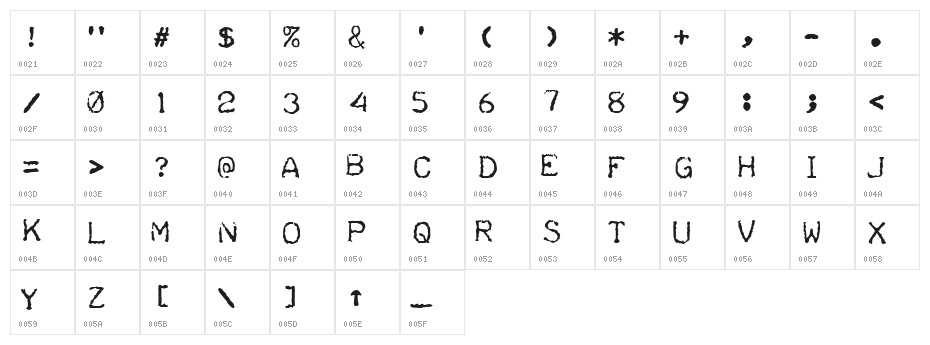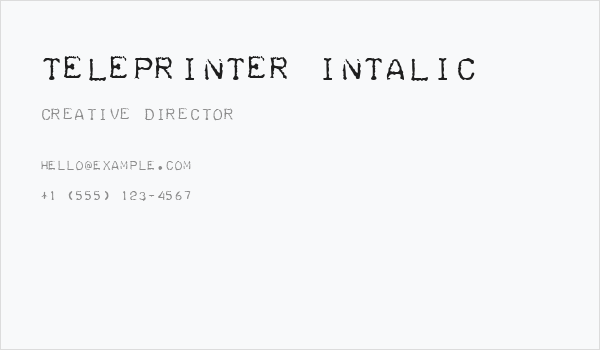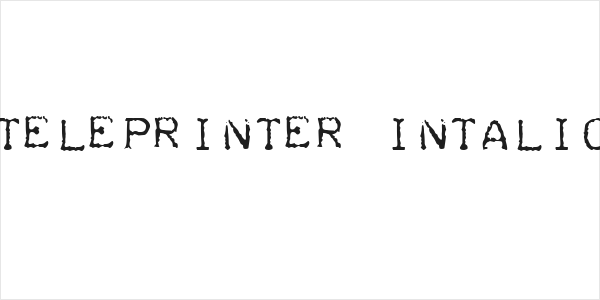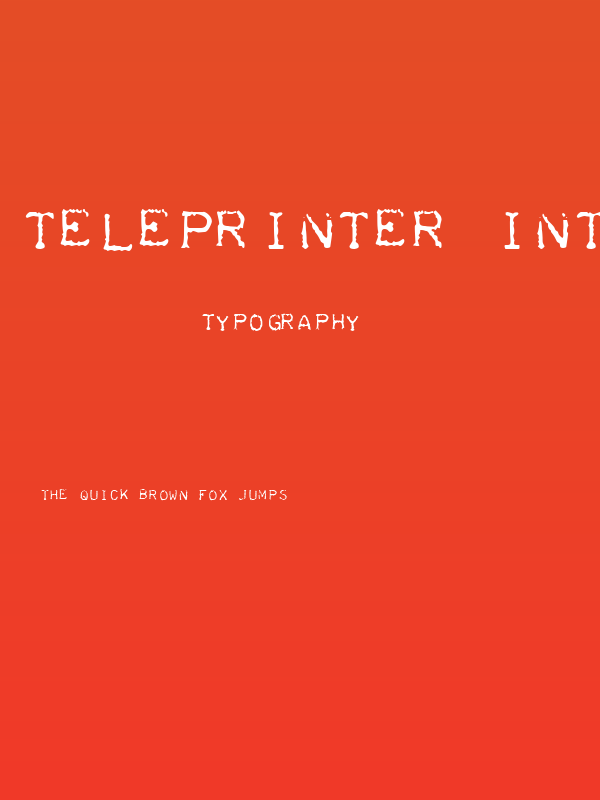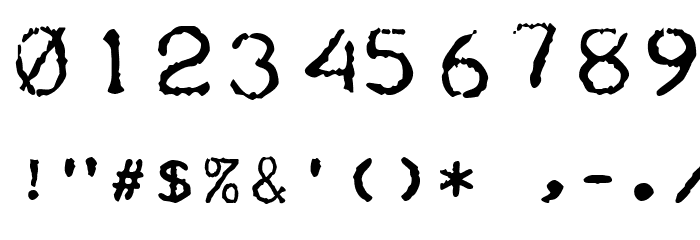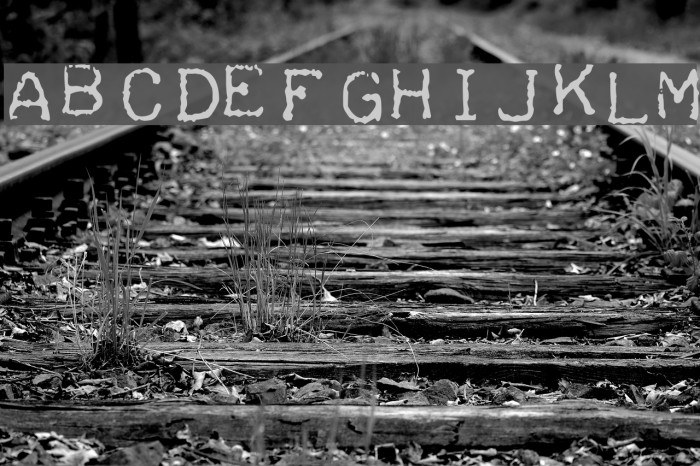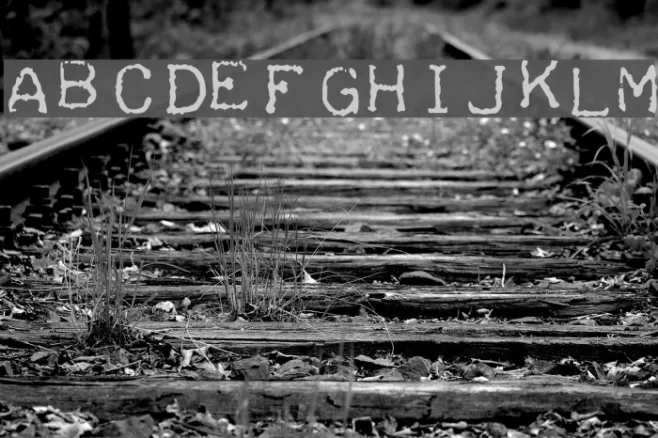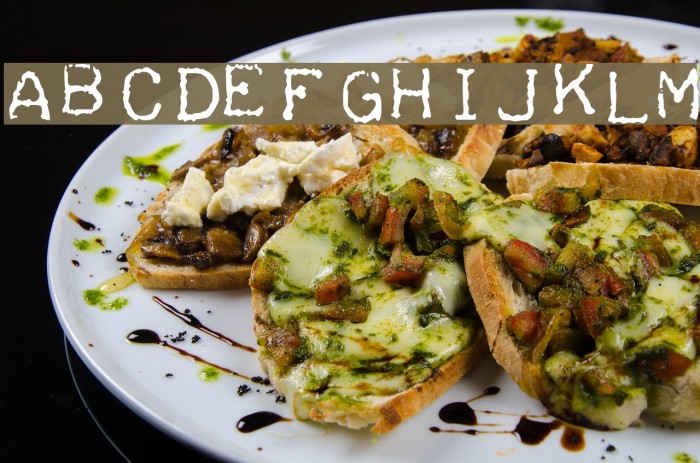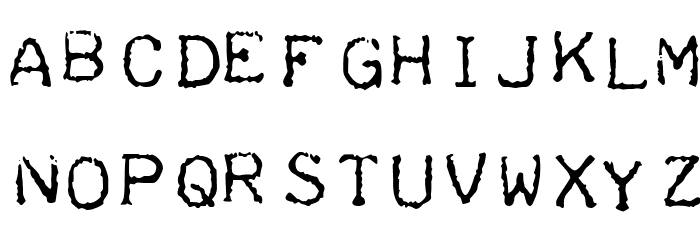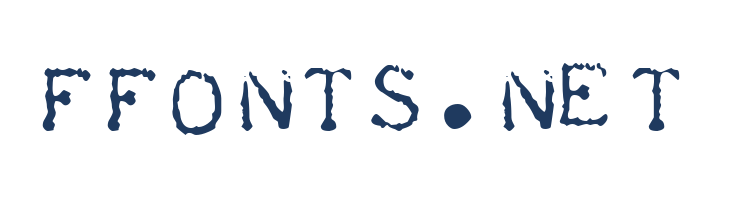
Teleprinter Intalic Font
Teleprinter Intalic Description
This font features a distinctive, textured appearance reminiscent of old typewriter or teleprinter output. Each character has a rough, uneven edge, giving it a vintage and mechanical feel. The uppercase and lowercase letters maintain a consistent style, with a slightly condensed form that enhances readability. Numbers and special characters follow the same textured pattern, ensuring uniformity across all glyphs. The font's unique style makes it suitable for projects that aim to evoke a sense of nostalgia or industrial aesthetic.
| Proposed Projects | Ideal for retro-themed designs, vintage posters, industrial branding, and creative projects that require a nostalgic touch. |